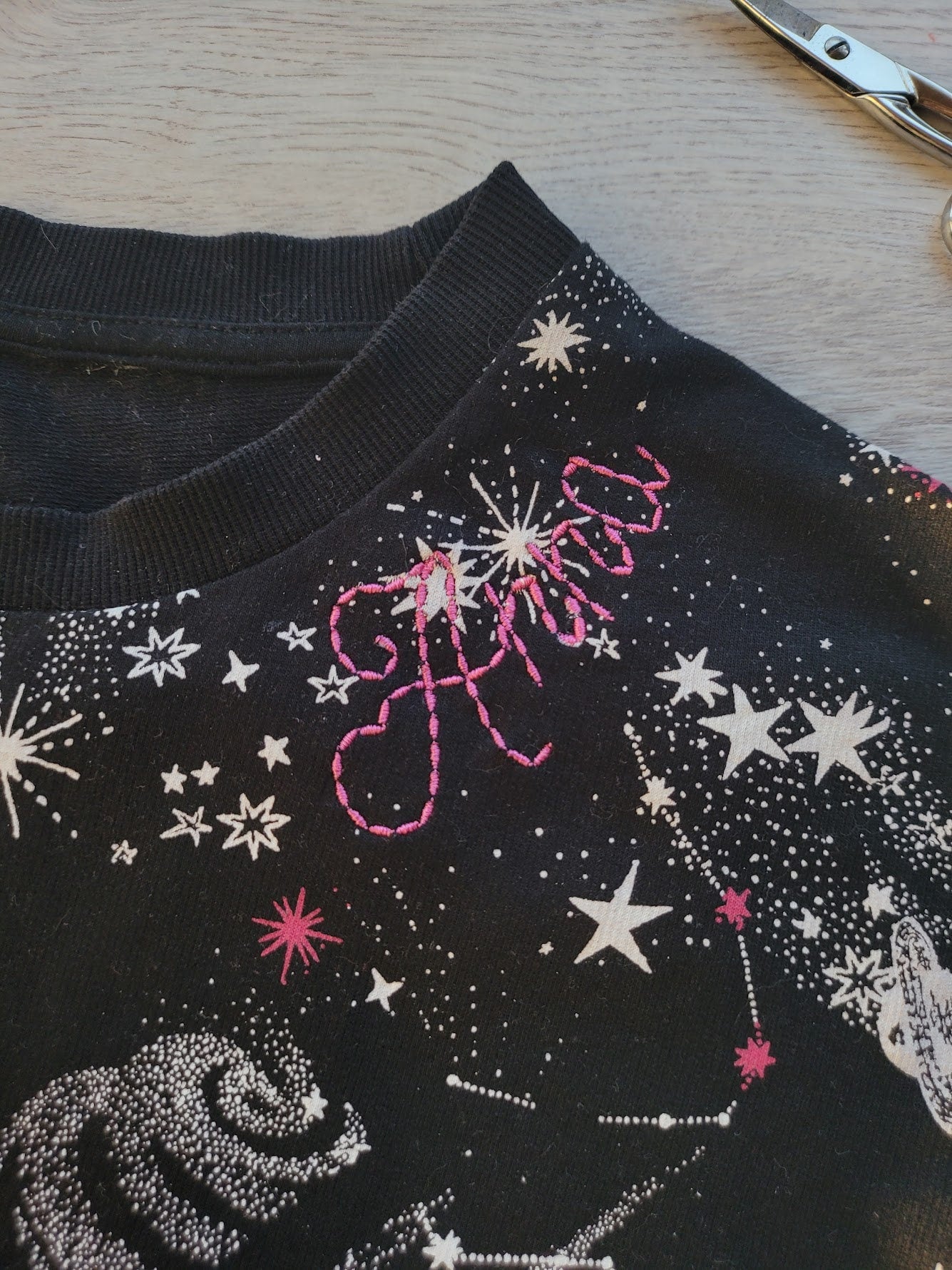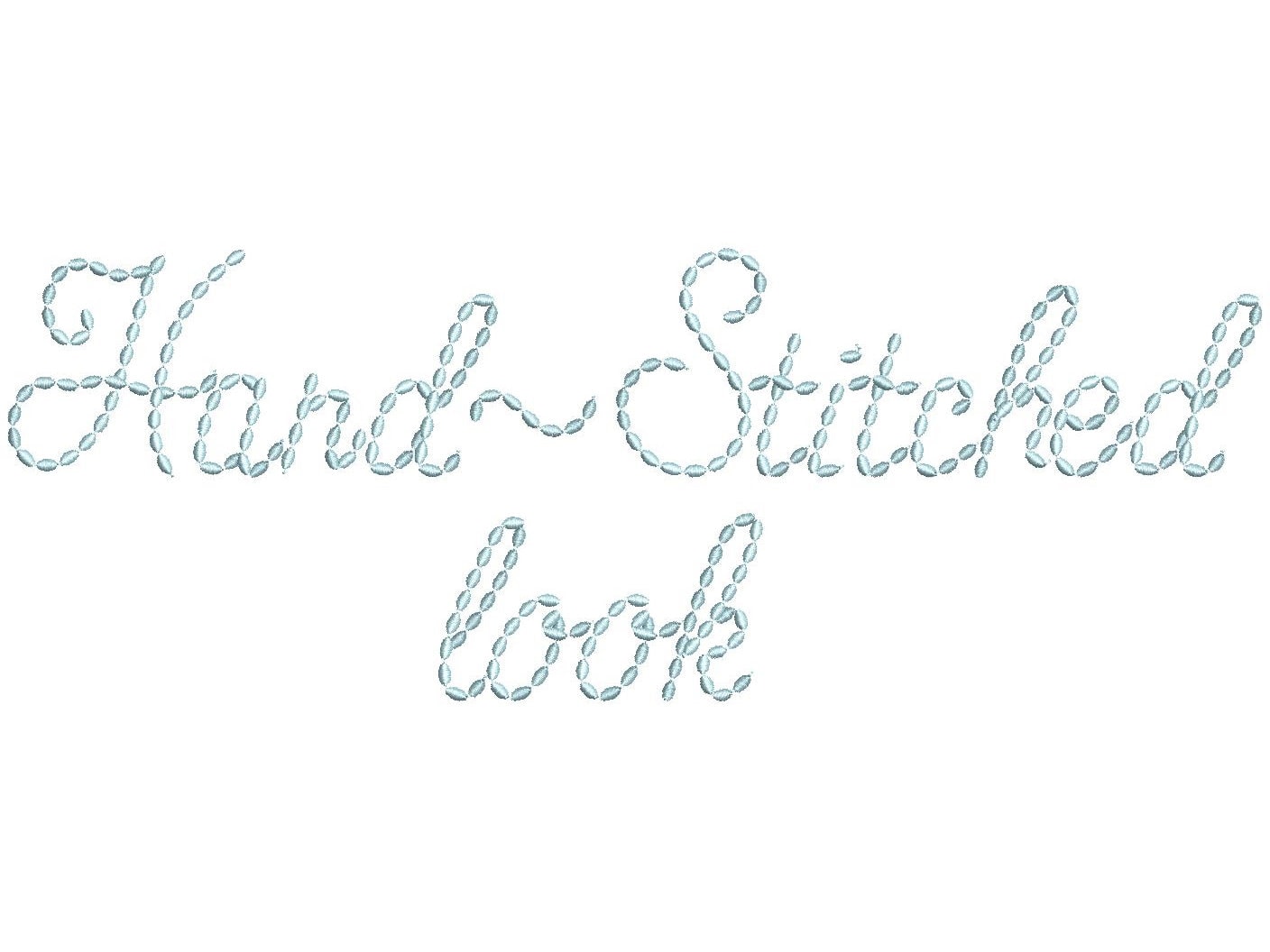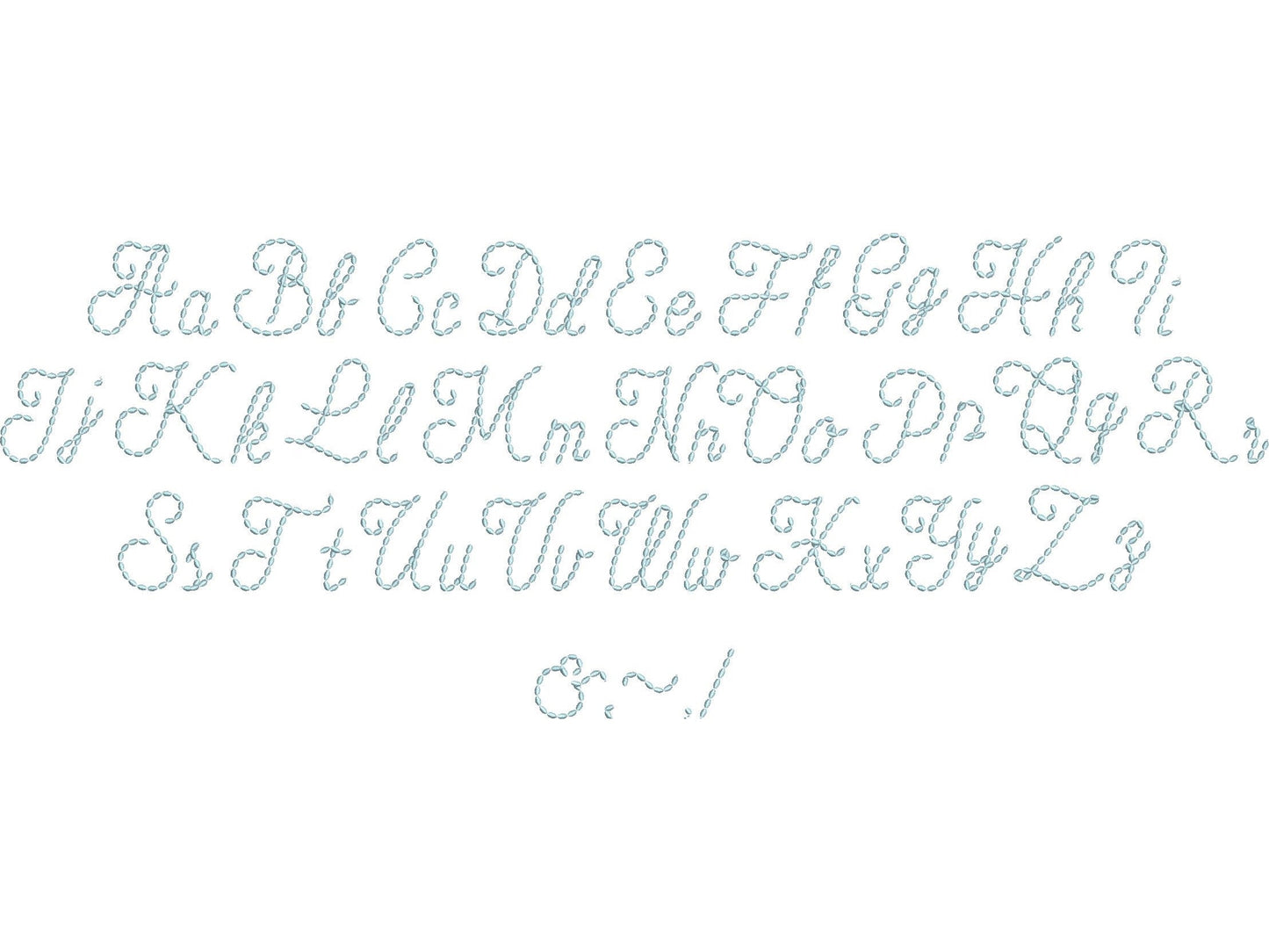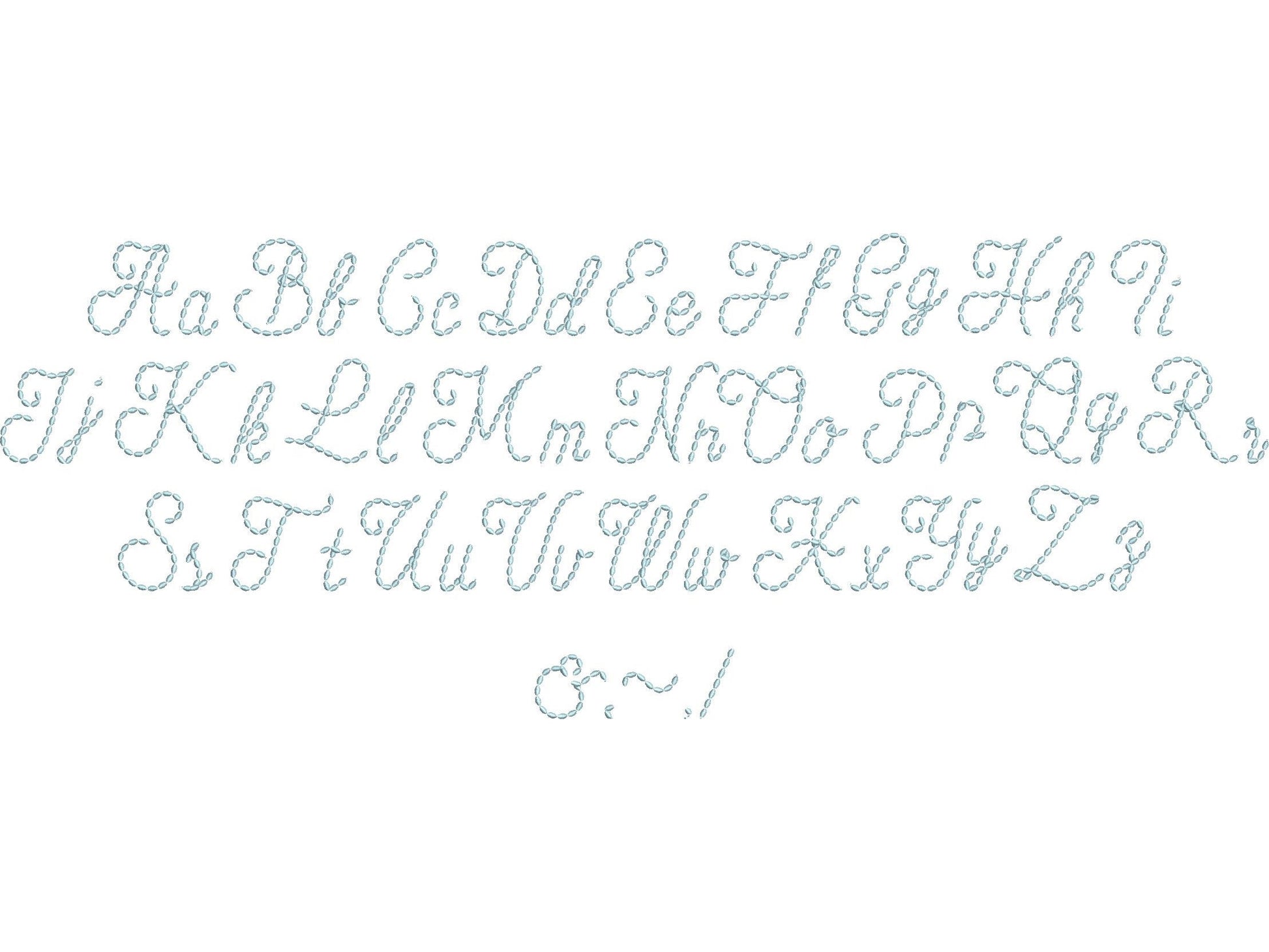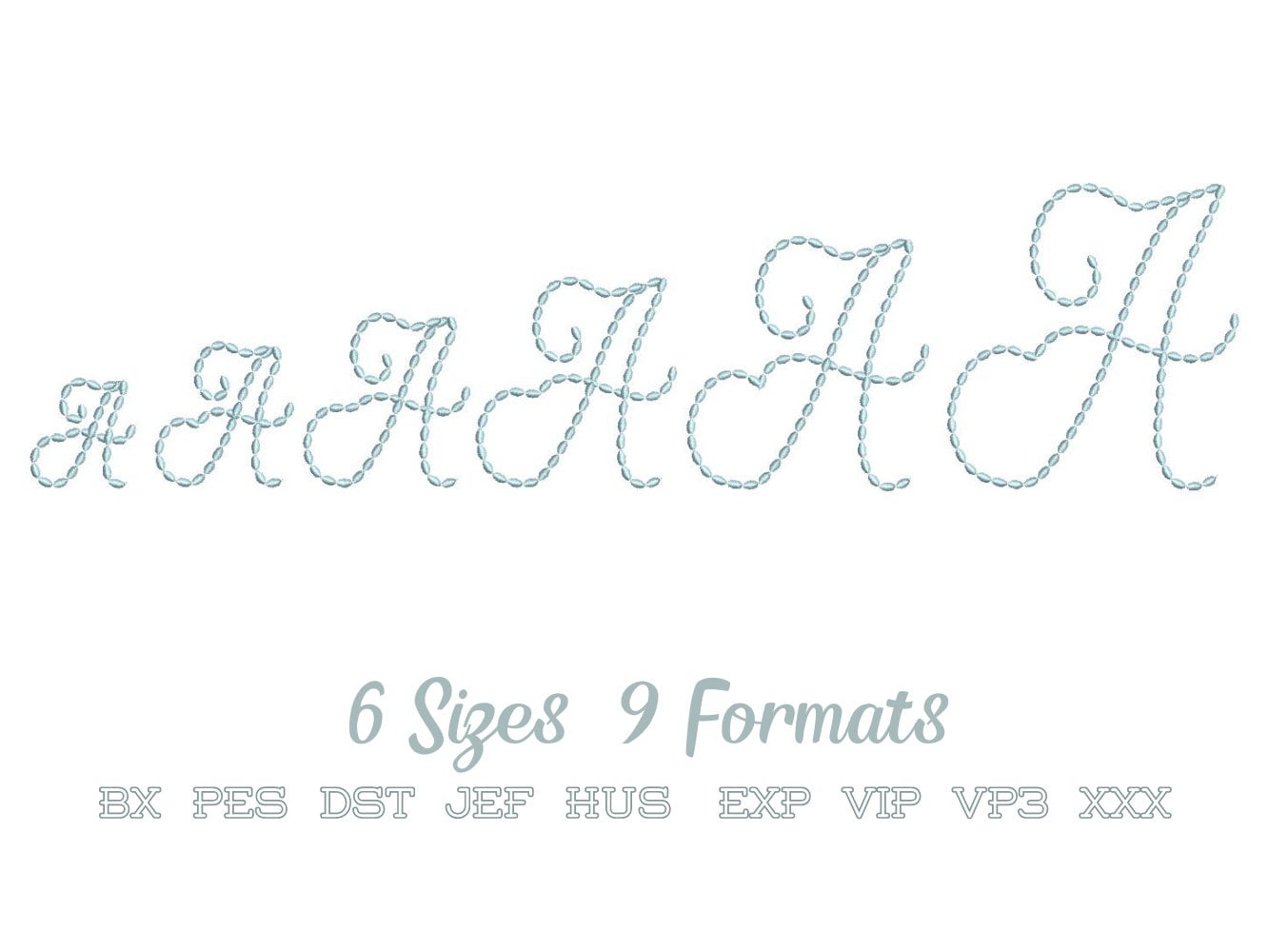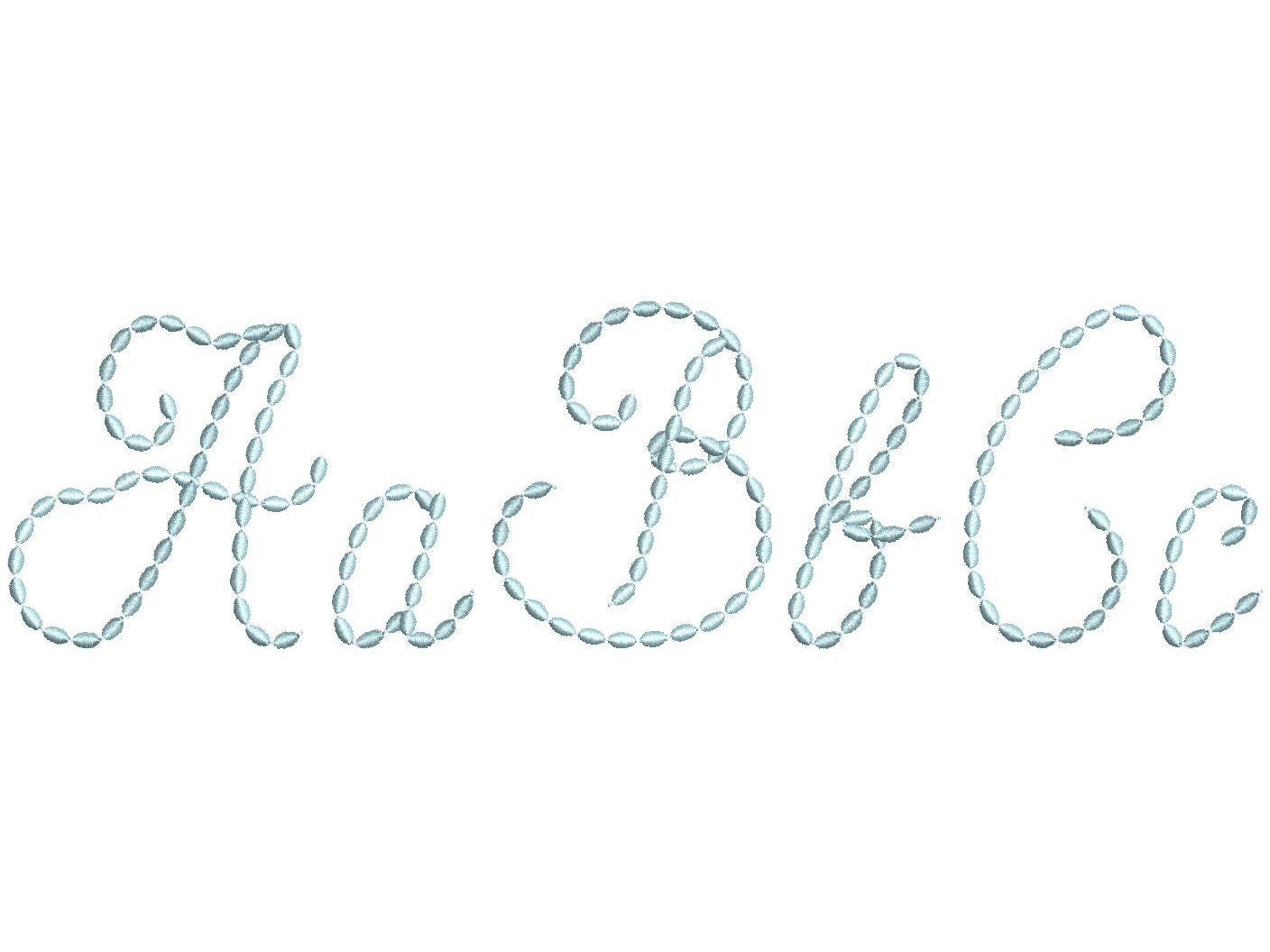
Stitched out beautifully. Will purchase from this shop again!!!!
I really liked the way it stitched out.
Love this font! Stitches out well and is super cute!
Perfect stitch out !
Font stitches out exactly how it looks, thank you
Beautiful and stitches so easily
Love this font. Used it on a onesie for my new grand baby.
it's exactly as described I definitely love her bean stitch font the best! Easy to navigate files and stitched out perfectly!
This is the cutest font!
Such a sweet font to use on my new grandson's outfit.
I really like the stitch out of this font. It really stands out as if it's hand stitched.
Beautiful font!